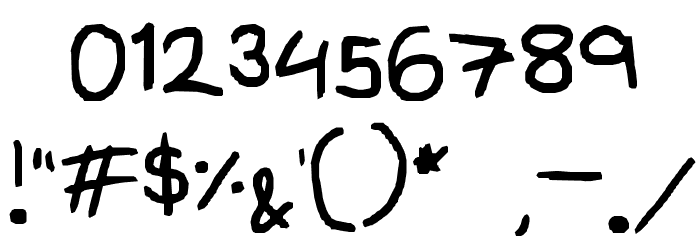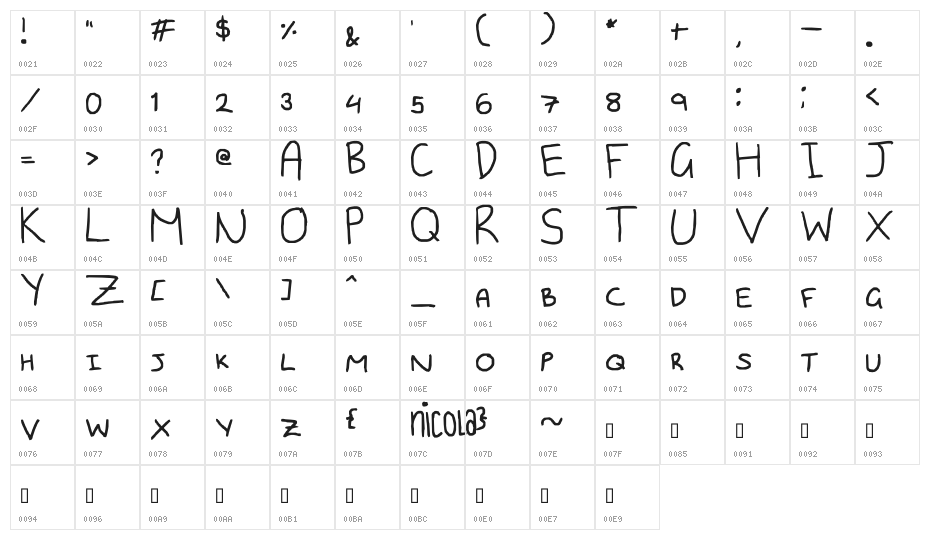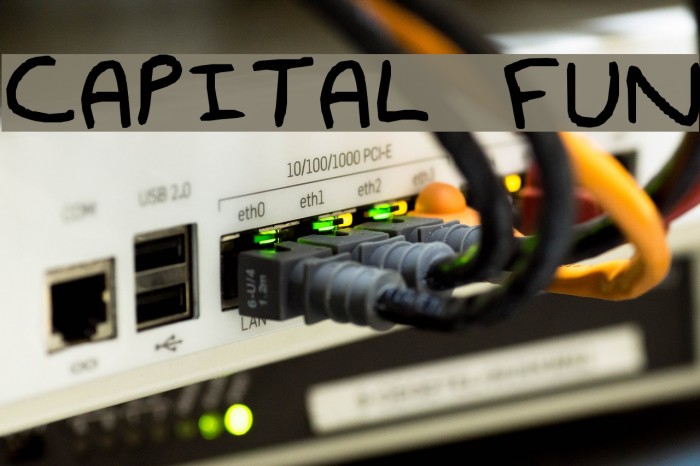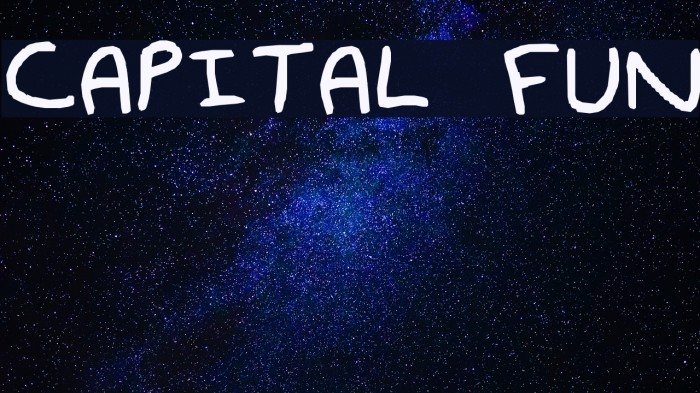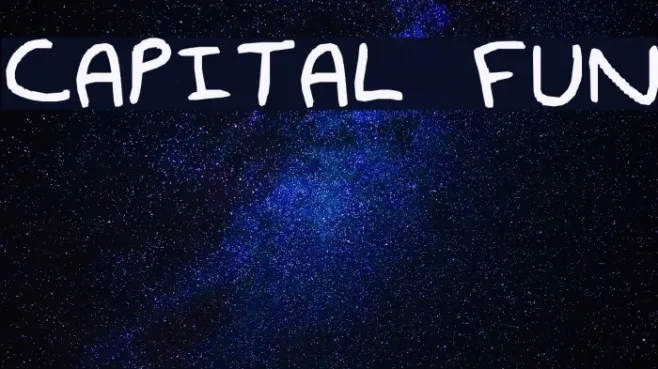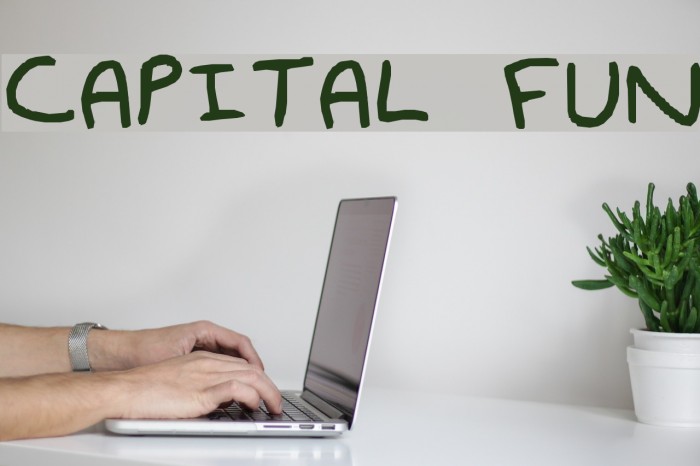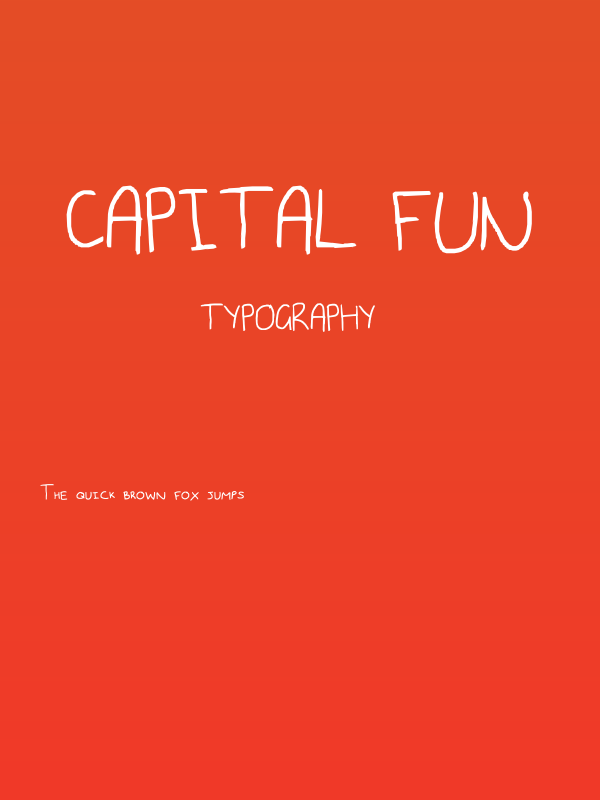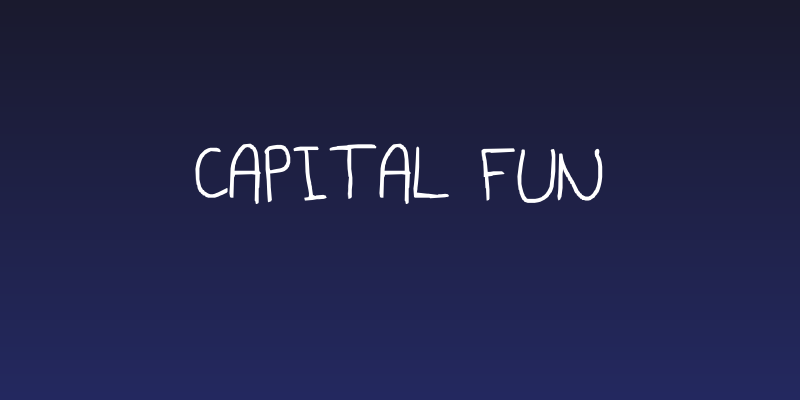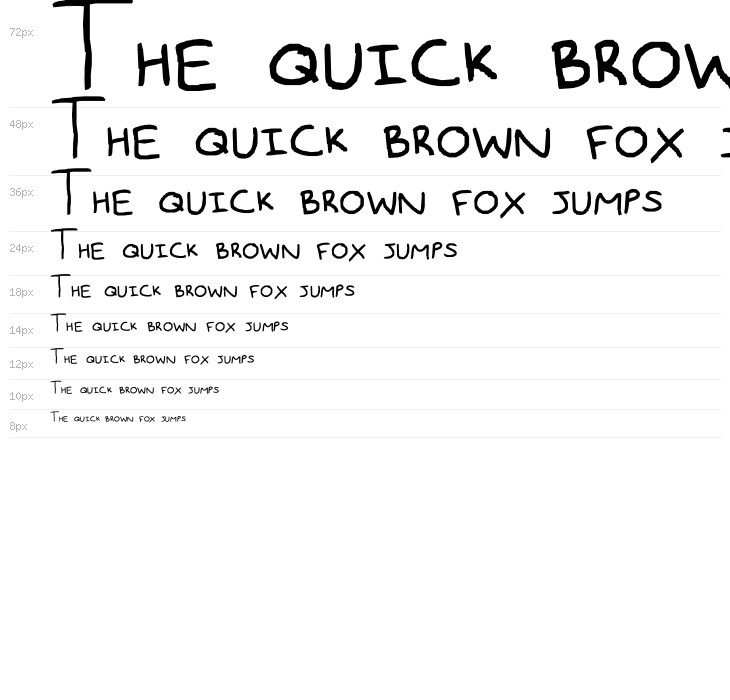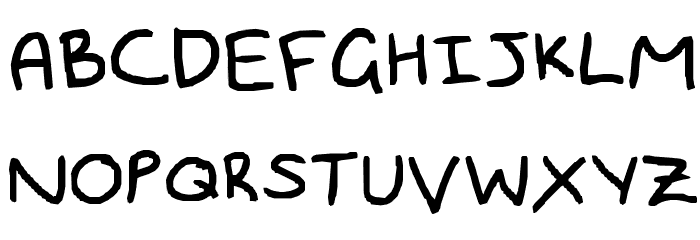
capital fun Font
capital fun Description
This playful and casual font features a handwritten style with a slightly irregular baseline, giving it a lively and informal appearance. The characters are bold and rounded, with a consistent stroke width that maintains readability while adding a touch of whimsy. The uppercase and lowercase letters are distinct yet harmonized, and the numerals are clear and legible. The special characters complement the overall style, making it versatile for various creative applications. Its informal nature makes it suitable for projects that aim to convey friendliness and approachability.
| Proposed Projects | Ideal for children's books, greeting cards, casual branding, and playful posters. |